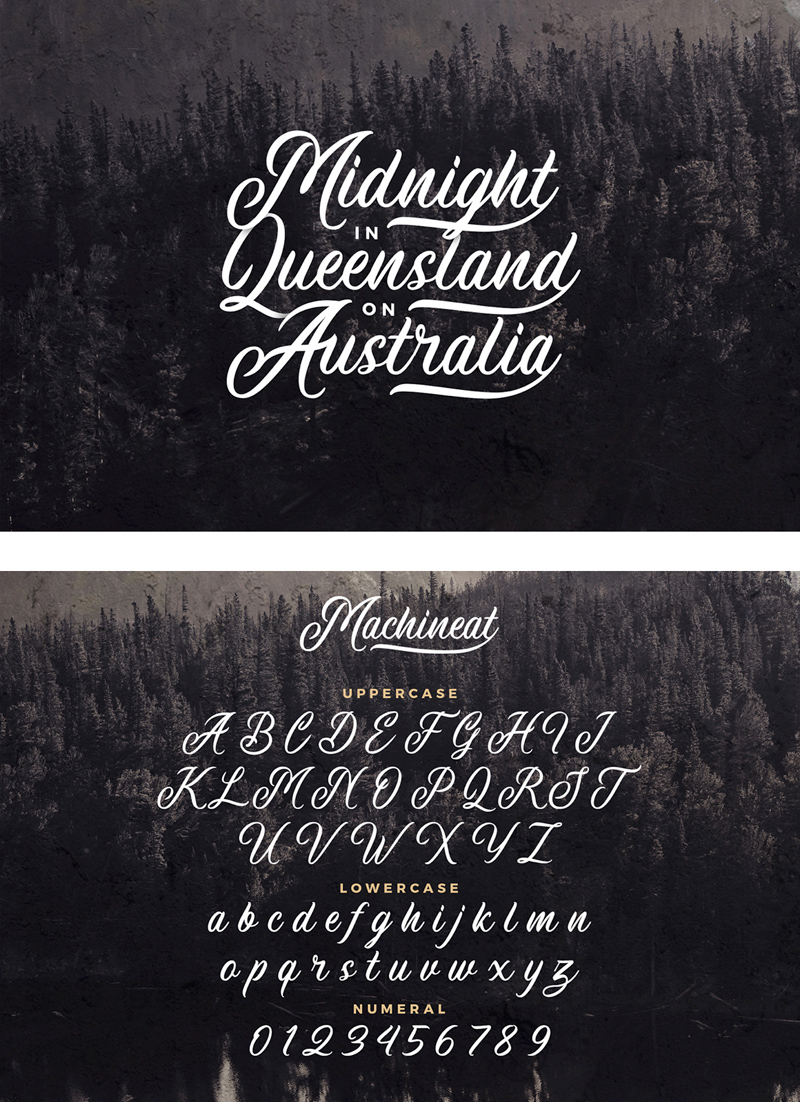
Machineat Font
Machineat is truly inspired by traditional handpainted sign style, with the natural flow and handmade taste this typeface is ready to use for your projects such as logotype, letterhead, poster, apparel design, label, advertisements, product designs, mural, and etc.